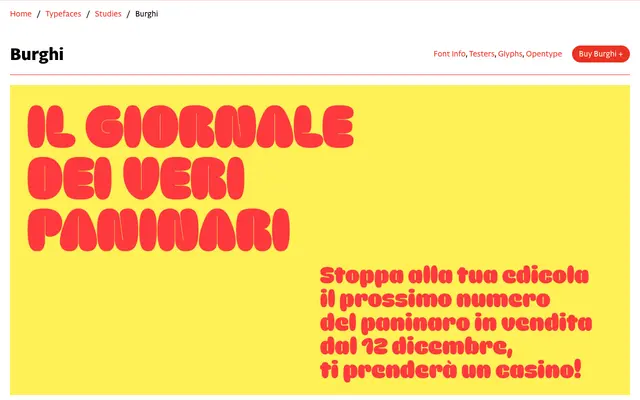
Burghi
CAST · Fabrizio Falcone, Alex Bossi · 2022
displayfat face / rounded display
A chubby variable display face by Fabrizio Falcone and Alex Bossi, inspired by the logo of Burghy, Italy's first American-style fast-food chain, and the paninari subculture of 1980s Milan.
Fat, rounded letterforms evoke the graphic language of early fast-food branding, with the design rooted in the consumer hedonism of Milan's paninari youth culture. As a variable font it offers two optical size variants: tight, near-microscopic counters for use above 40pt and slightly wider counters for smaller settings down to 20pt. The character set includes three fast-food emojis and a bagel counters stylistic set, giving it a playful range suited to joyful or tongue-in-cheek communication.
A chubby, rounded variable display face with optical size variants; its exaggerated weight and smooth letterforms place it firmly in the fat face / rounded display category, designed for large-scale decorative use.